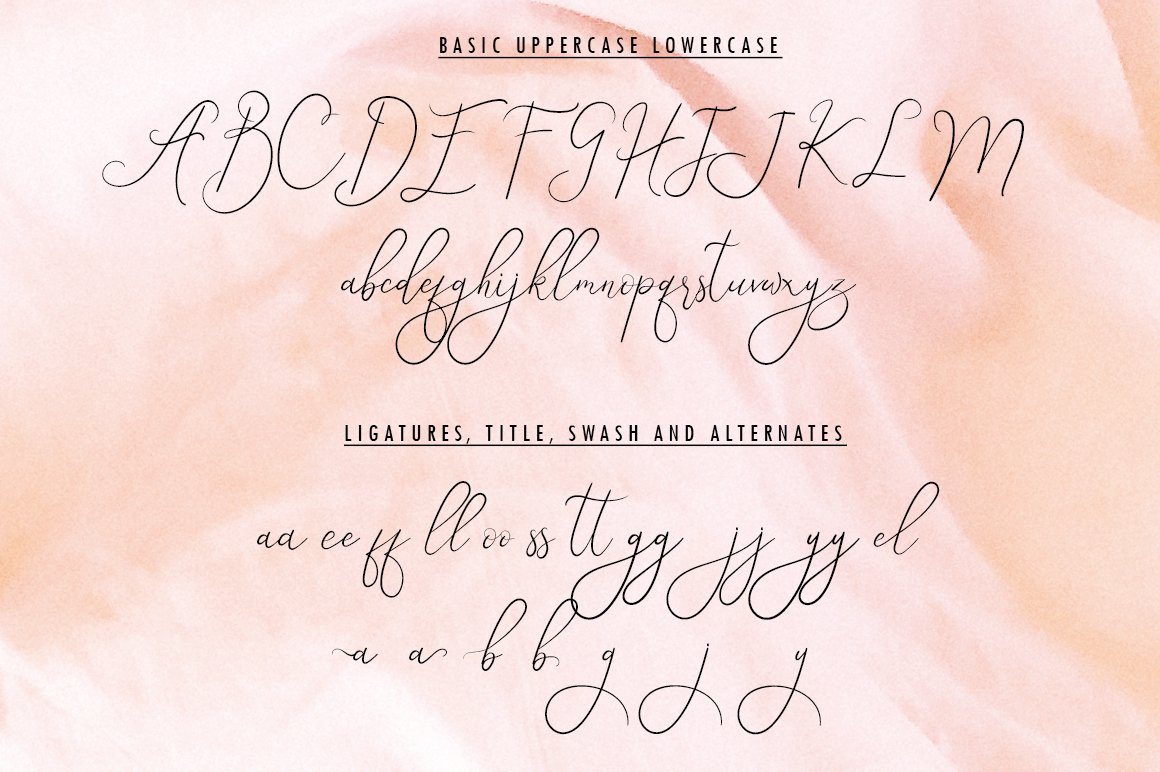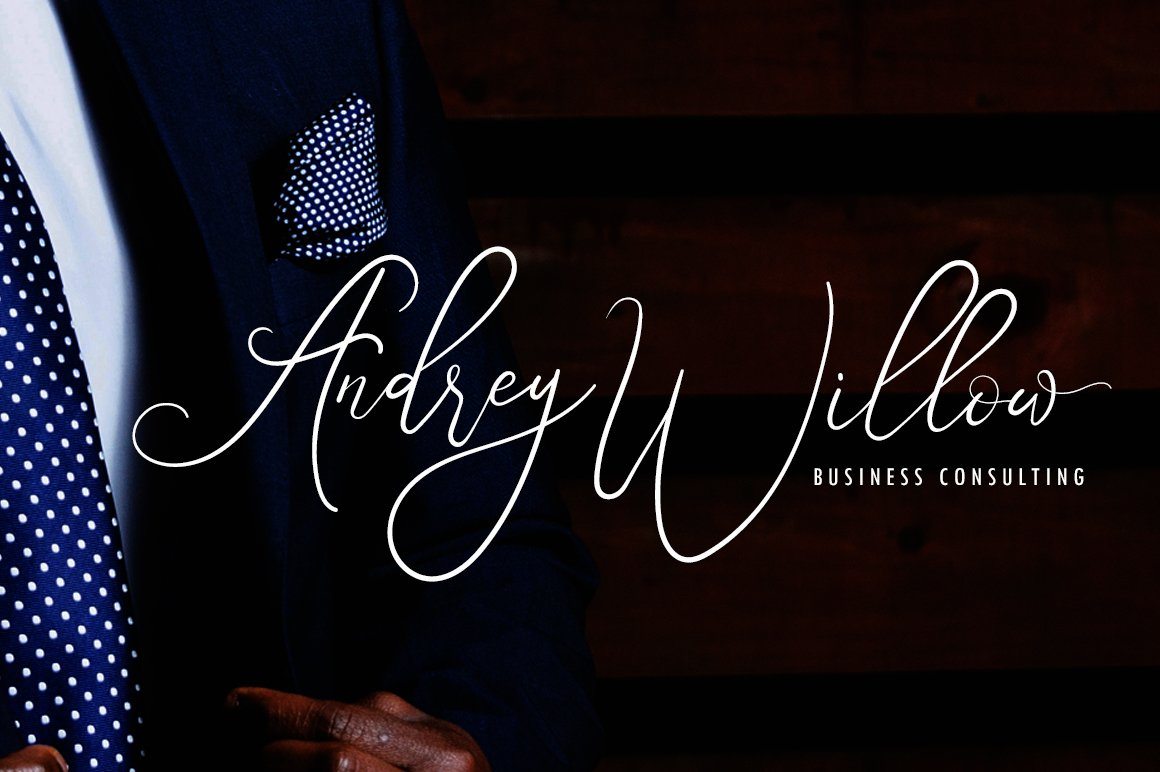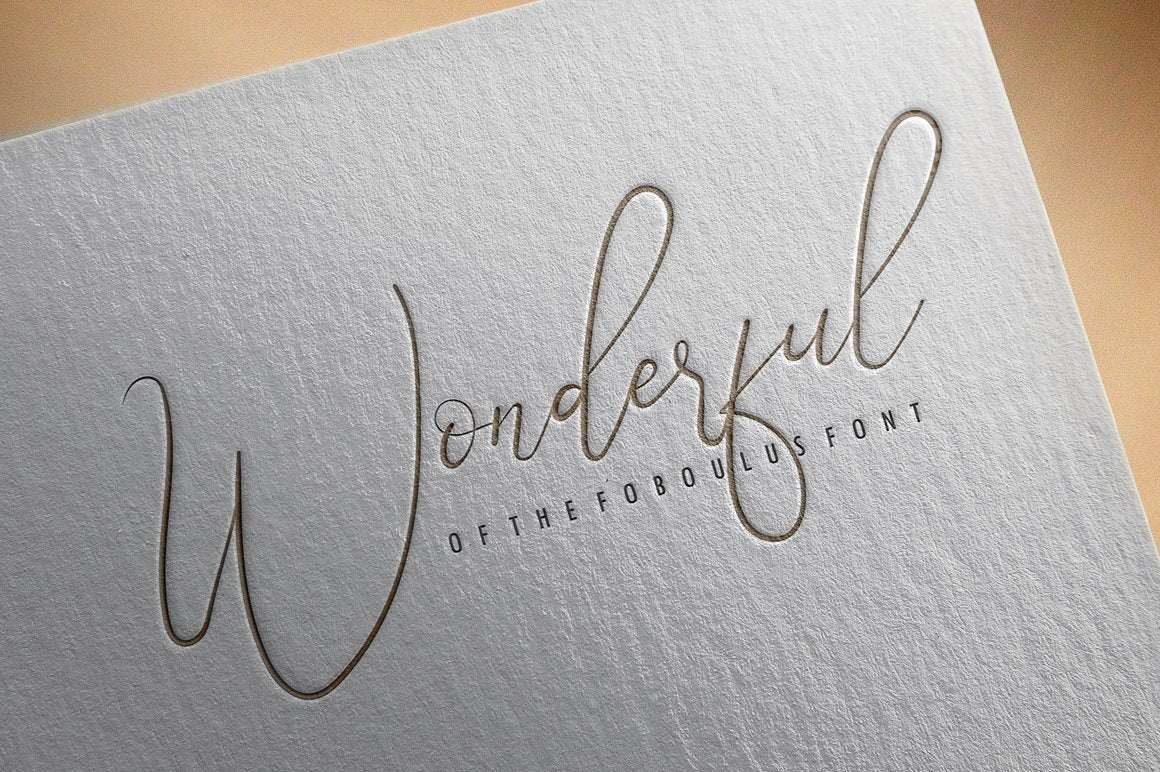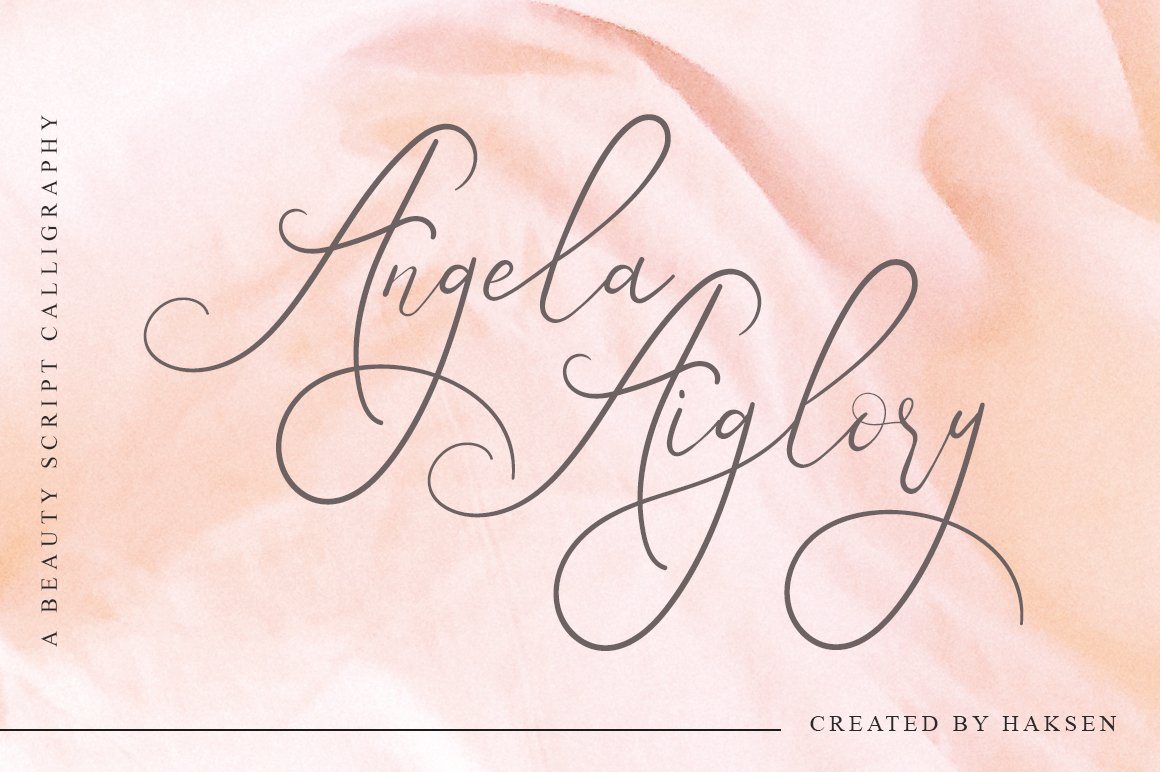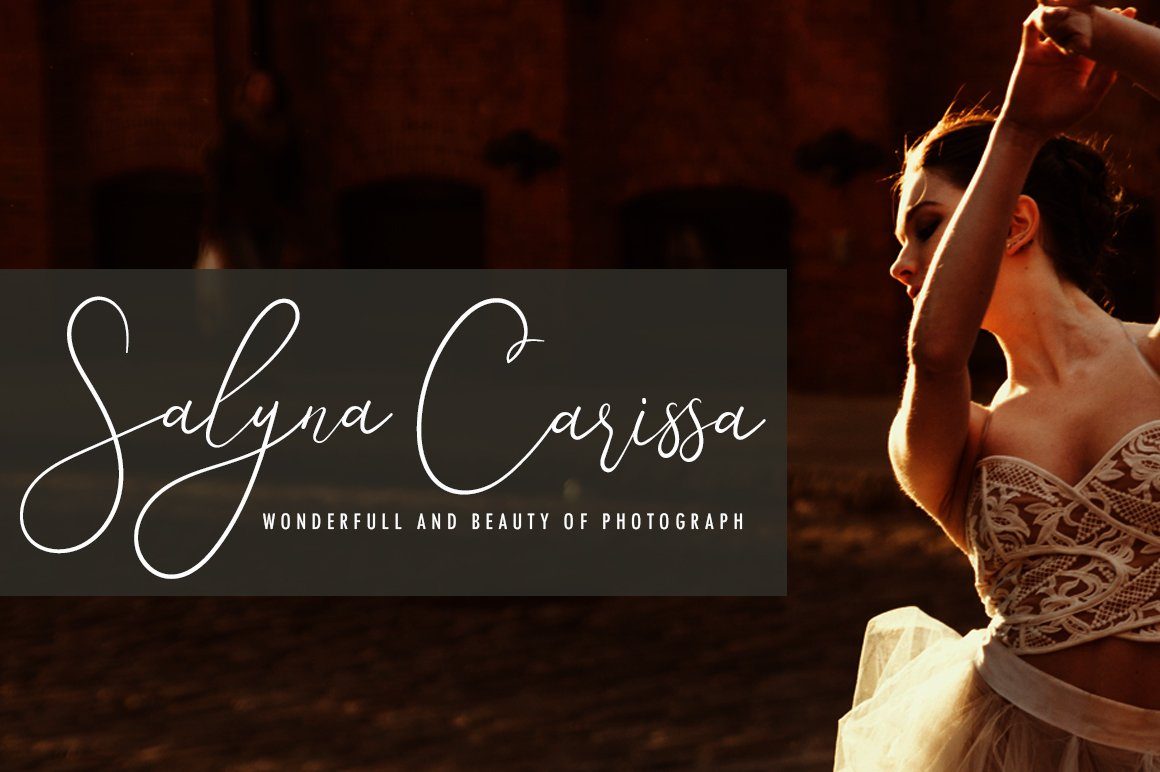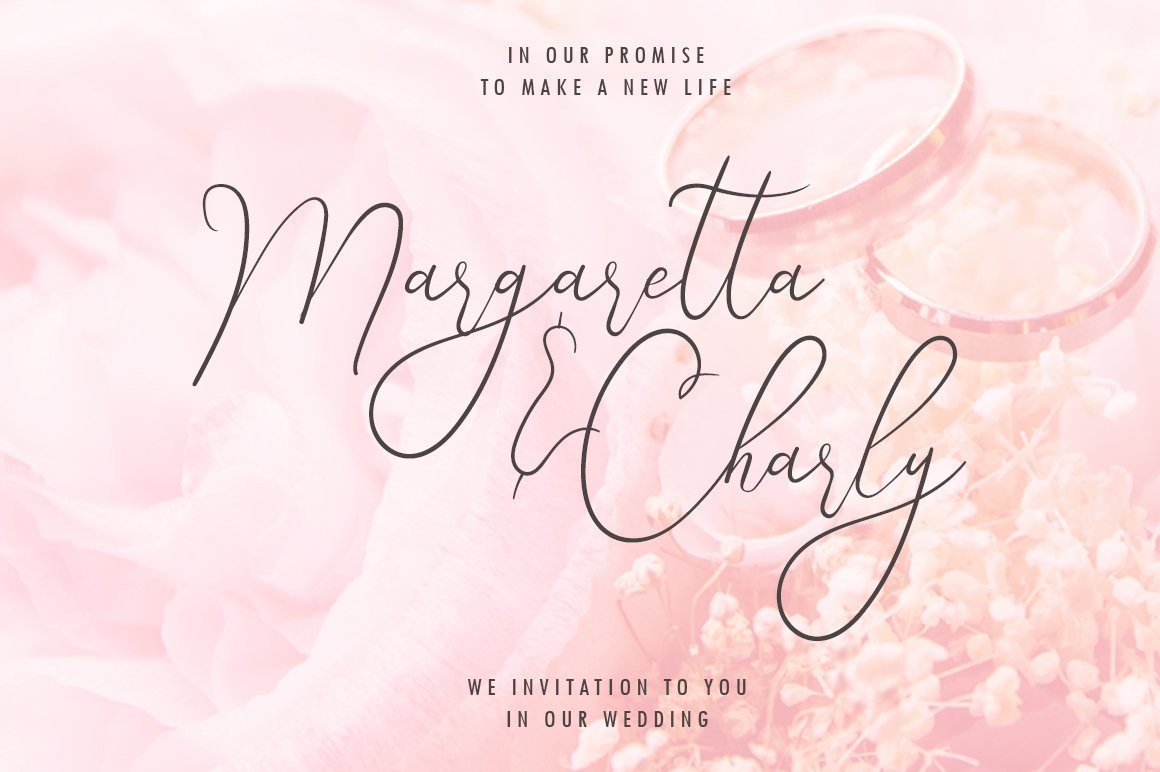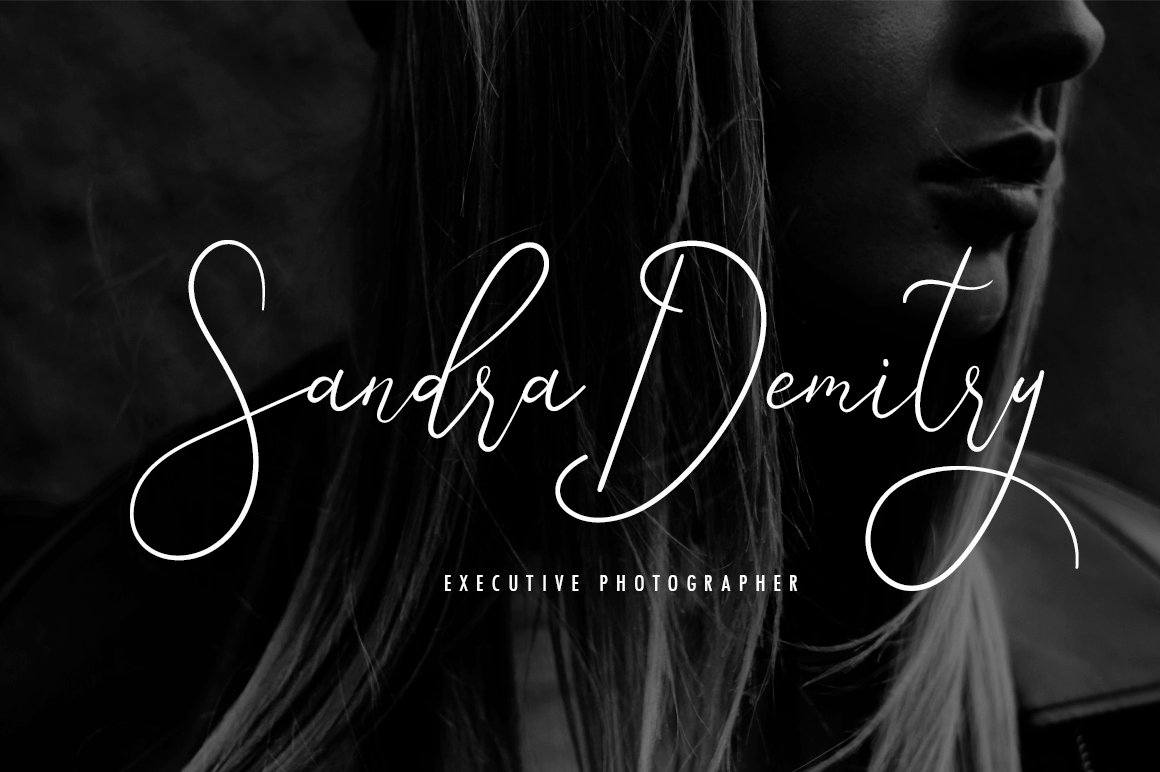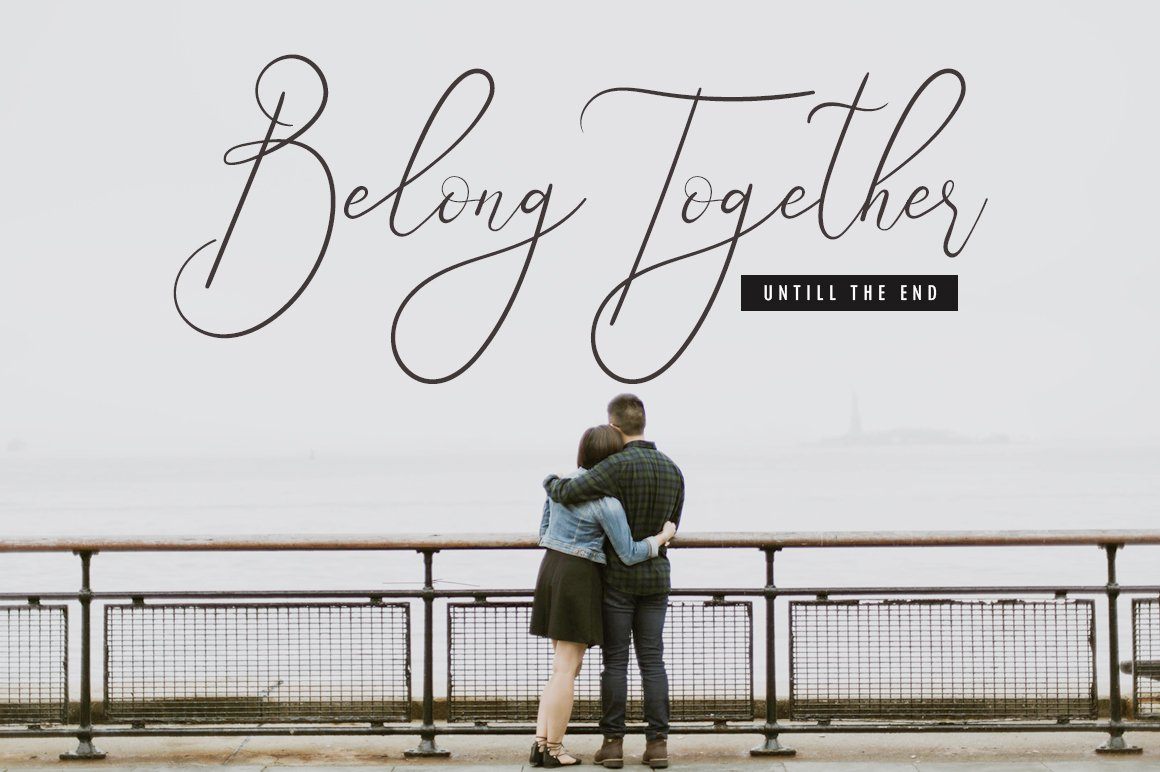
Angela Aiglory Beauty Script
About Angela Aiglory Beauty Script
Hello Everybody, Just launch my New Product ‘Angela Aiglory’ The new fresh handmade script font. Very suitable for greeting cards, branding materials, business cards, quotes, posters, and more! This font are perfect for all brand 🙂 Features : UpperCase & Lowercase Numerals & Punctuations Ligatures Multilingual characters (AÀÁÂÃÄÅCÇDÐEÈÉÊËIÌÍÎÏNÑOØÒÓÔÕÖUÙÜÚÛWYÝŸŸ ÆŒßÞàáâãäåæçèéêëìíîïðñòóôõöøùúûüýÿ) PUA ENCODEDZIP INCLUDED: Angela Aiglory OTF TTF and WOFF Don’t forget to visited the other amazing products Thanks for visited and Please contact me if you have any questions. Happy Design, Haksen